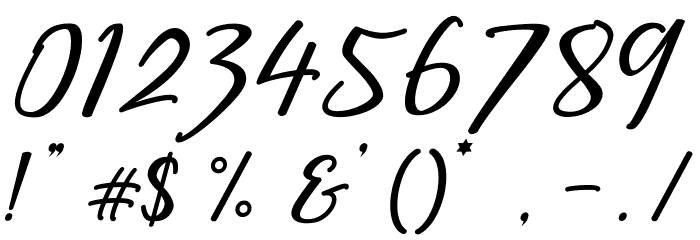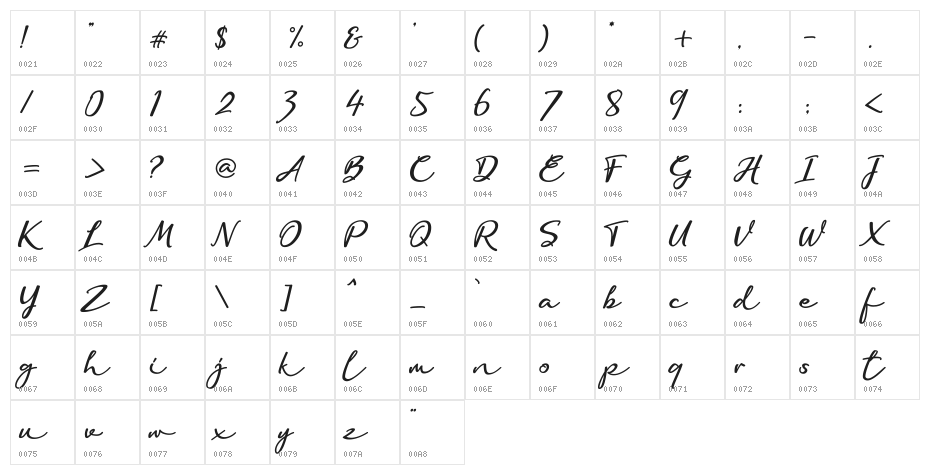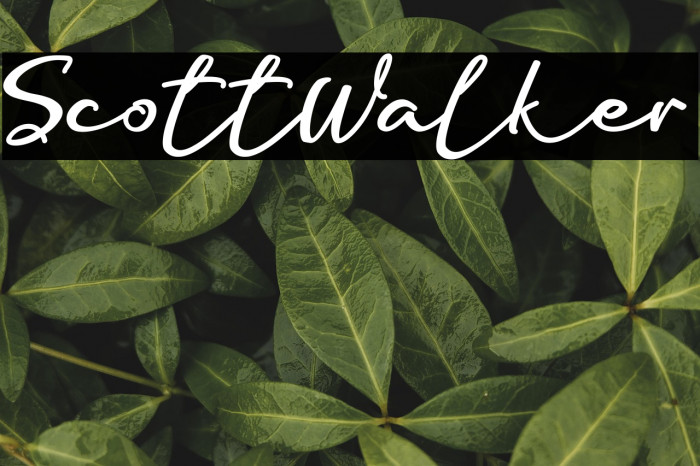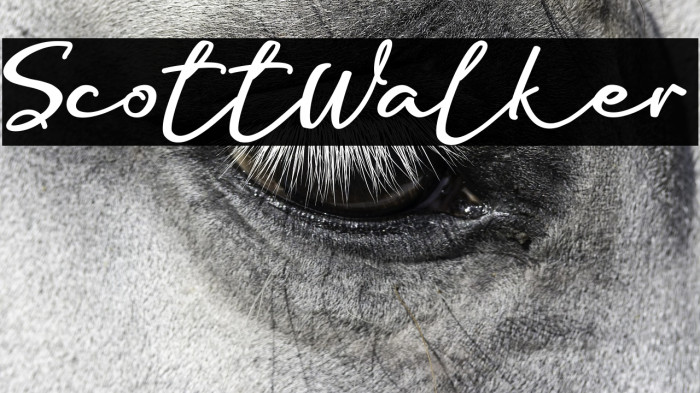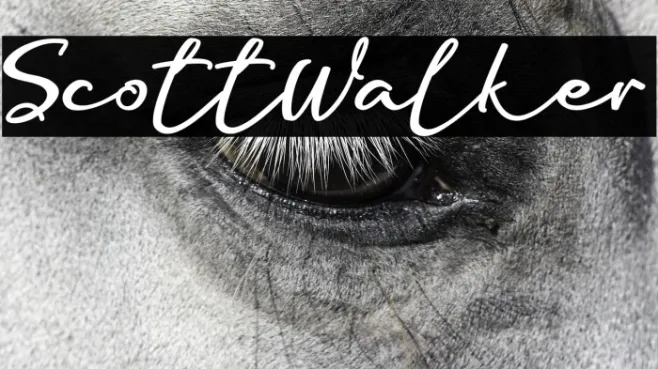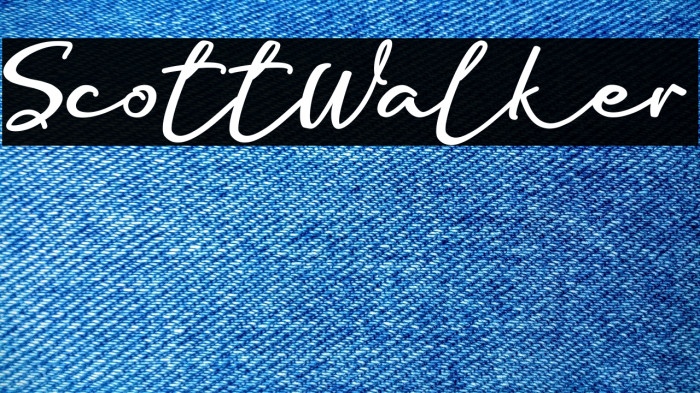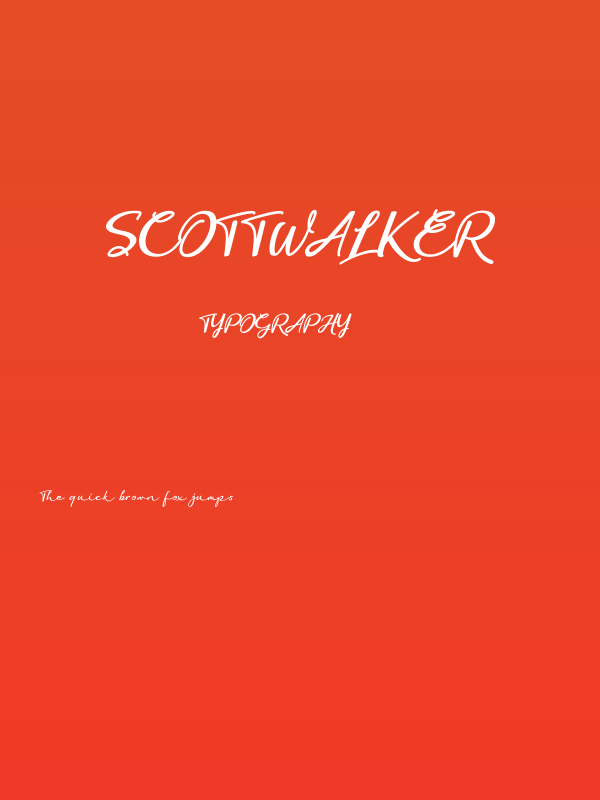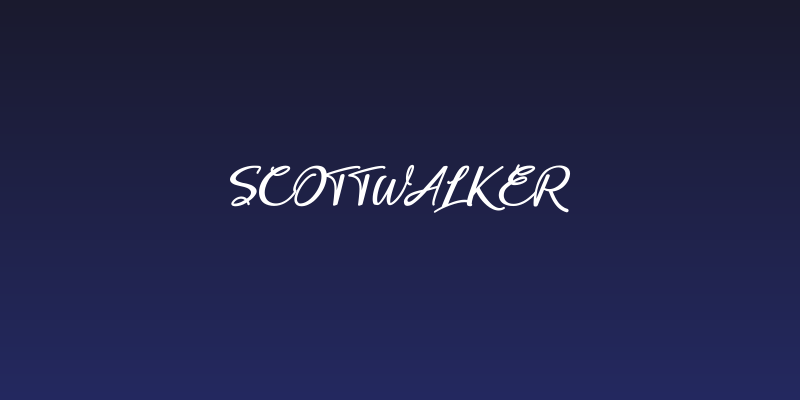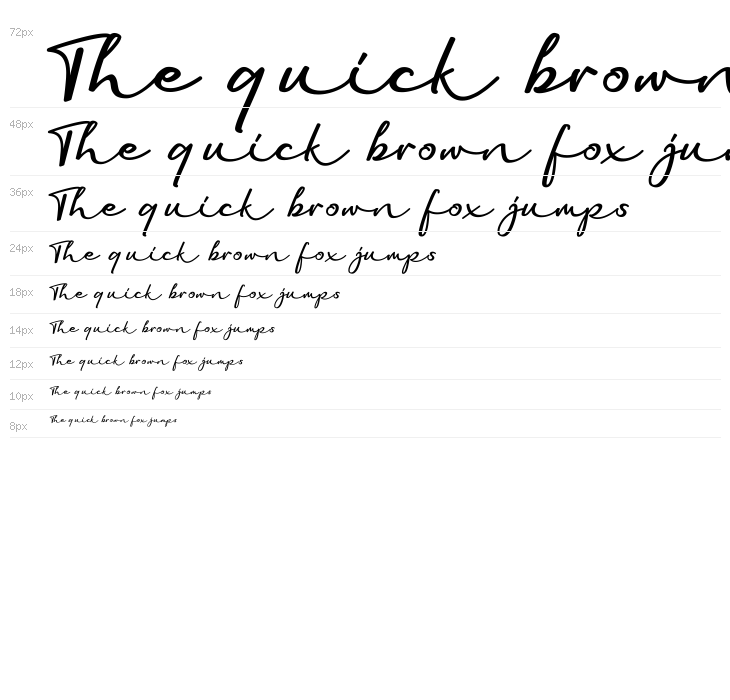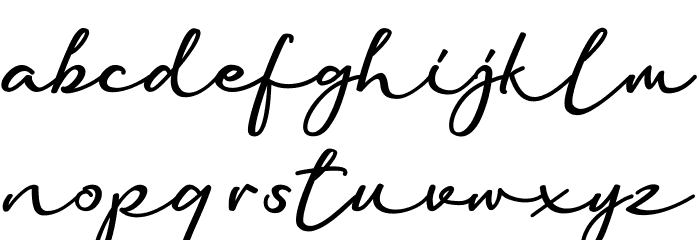
ScottWalker Font
ScottWalker Description
This font exudes a lively and dynamic energy with its cursive, handwritten style. The uppercase letters are bold and expressive, featuring elegant loops and flourishes that give a sense of movement and fluidity. The lowercase letters maintain a consistent flow, with smooth connections between characters, enhancing readability while retaining a personal touch. Numbers and special characters are crafted with the same attention to detail, ensuring a cohesive look across all elements. The overall appearance is both sophisticated and approachable, making it suitable for a variety of creative applications.
| Proposed Projects | Ideal for wedding invitations, greeting cards, personal branding, and creative projects that require a personal touch. |